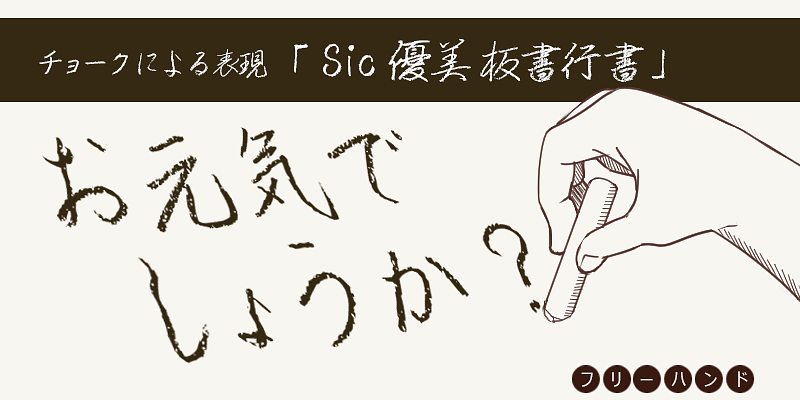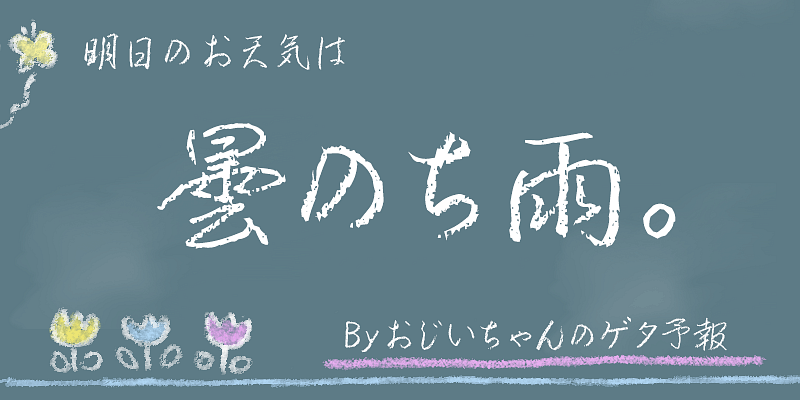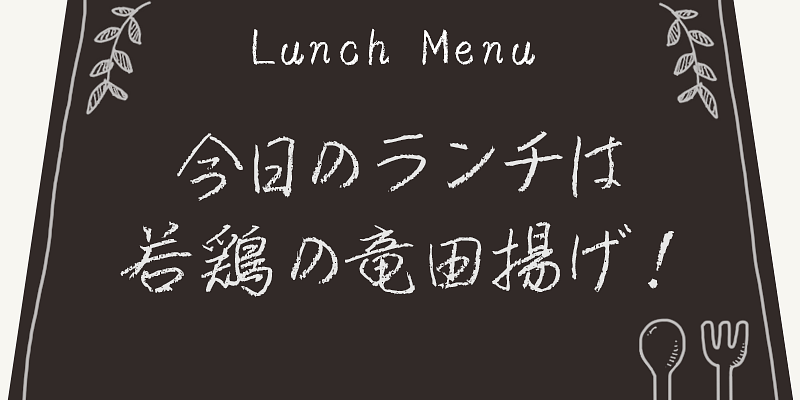
From a young age, Eiichi Kawazoe studied calligraphy under his father’s guidance. In the university’s special calligraphy department, he learned kanji from Kiseki Kosaka and Toson Amaishi, and kana from Kitsunan Tanibe and Kayu Hirata. To pursue the fluent Japanese calligraphy of kanji and kana that began with Yukinari, he has collected many ancient documents. He continues to refine his skills to preserve the traditional Japanese characters that developed alongside ukiyo-e. He also writes shrine seals and rakugo title cards, and challenges himself with the characters used in sumo and kabuki.
Skill Information"S" Co., Ltd.
Known for its focus on software development, particularly for the health services industry, Skill Information“S” found itself in the font business through a collaboration with Techno Advance Co, Ltd, in 2007.